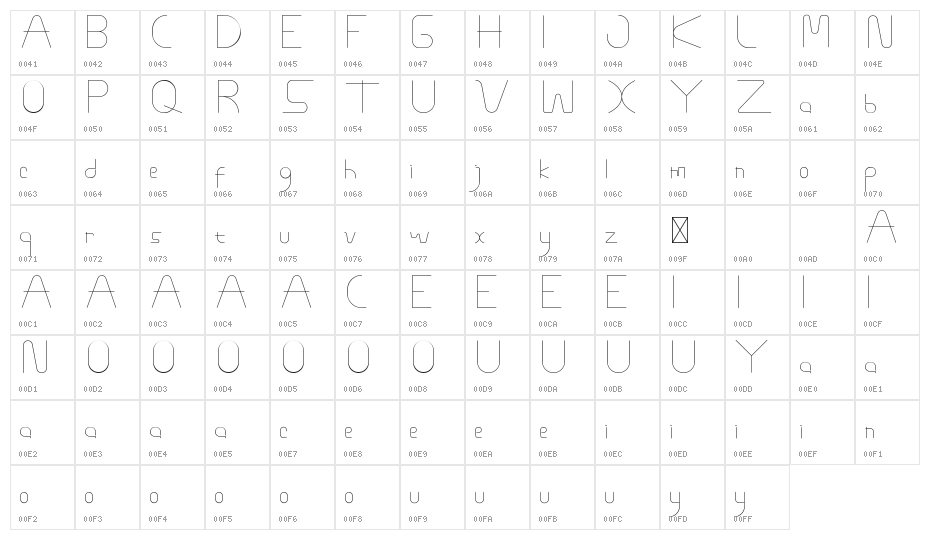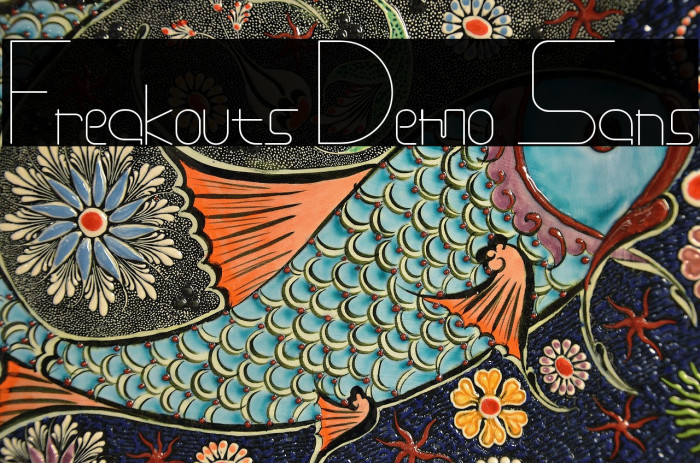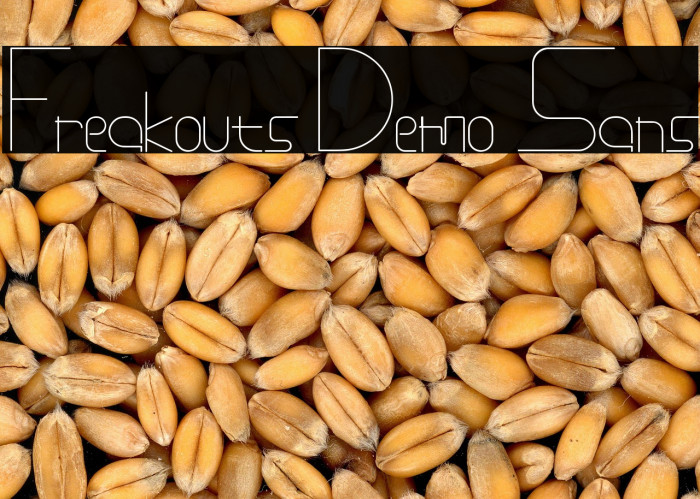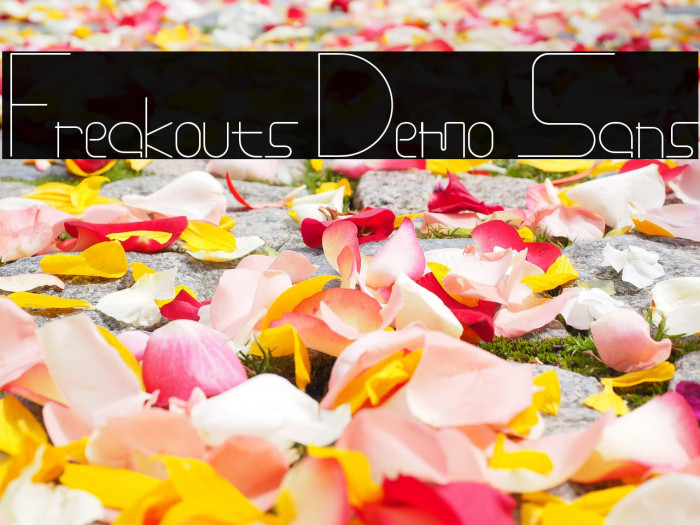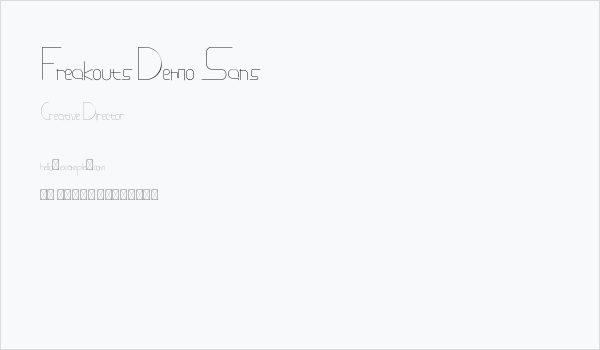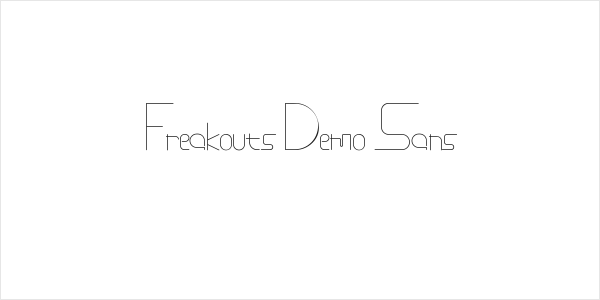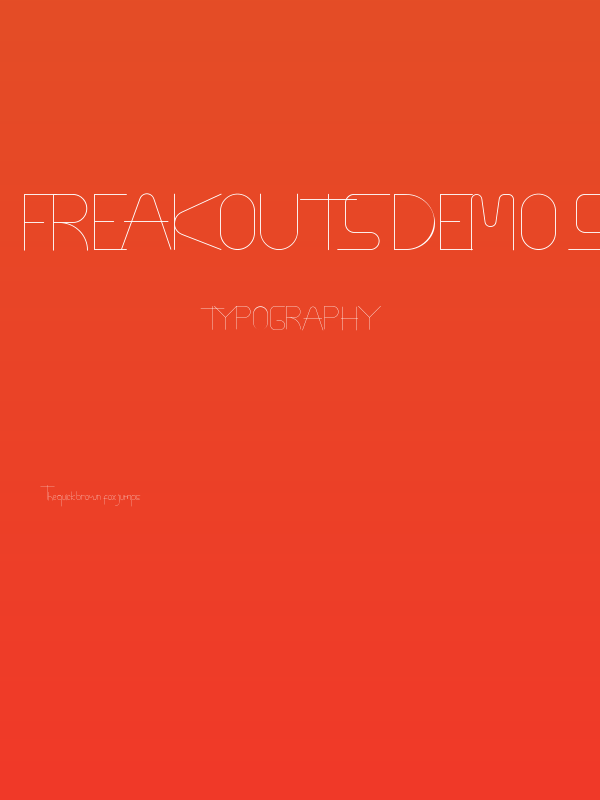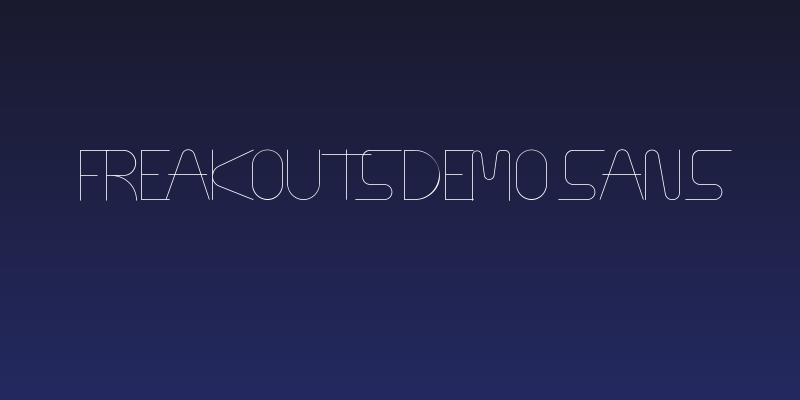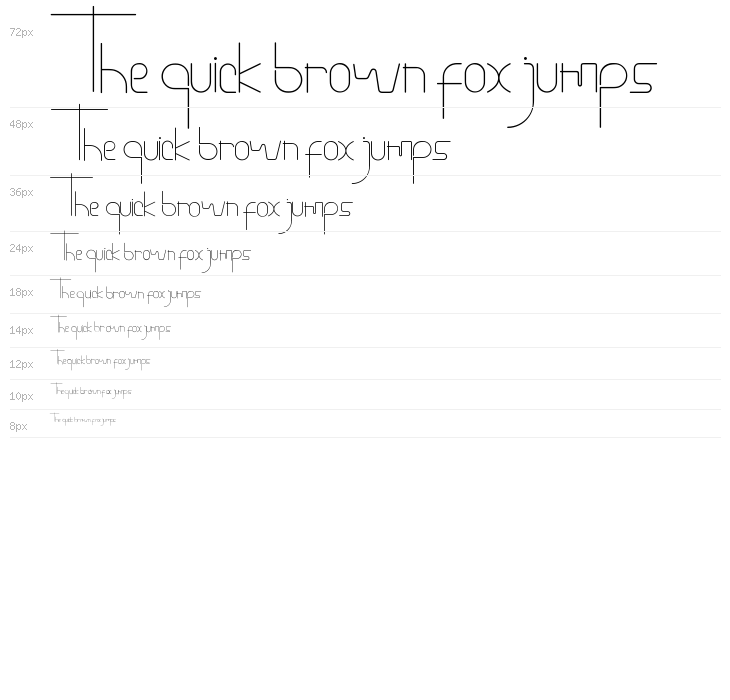
Freakouts Demo Sans Font
Freakouts Demo Sans Description
This font features a unique and modern design with a geometric and minimalist approach. The characters are composed of thin, continuous lines that create an open and airy feel. The uppercase and lowercase letters maintain a consistent style, with some characters exhibiting distinctive angular cuts and curves. The font's overall appearance is sleek and futuristic, making it ideal for contemporary design projects. Its linear and clean structure ensures readability while adding a touch of sophistication and elegance. The numerals and special characters follow the same design principles, ensuring a cohesive look across all text elements.